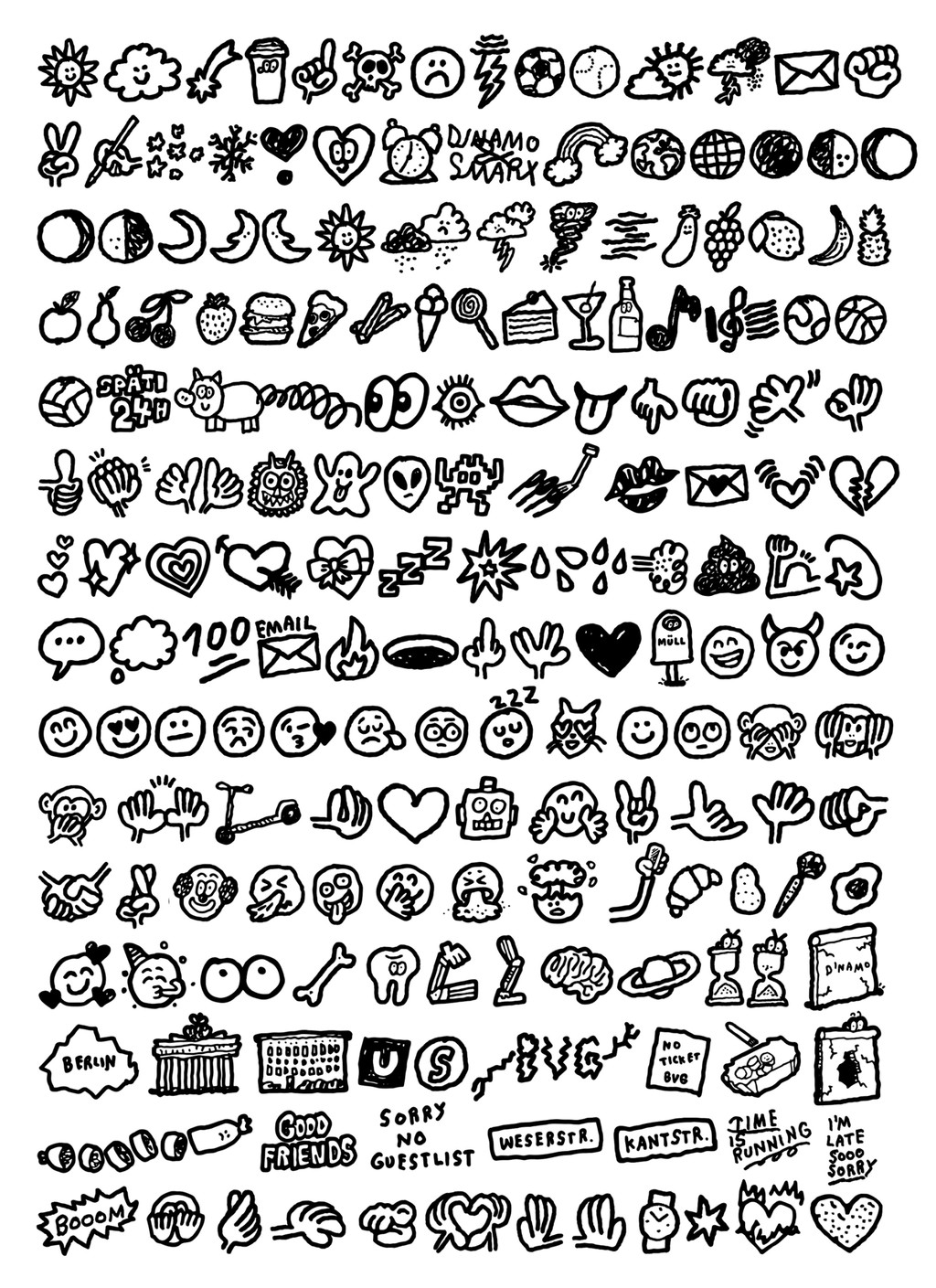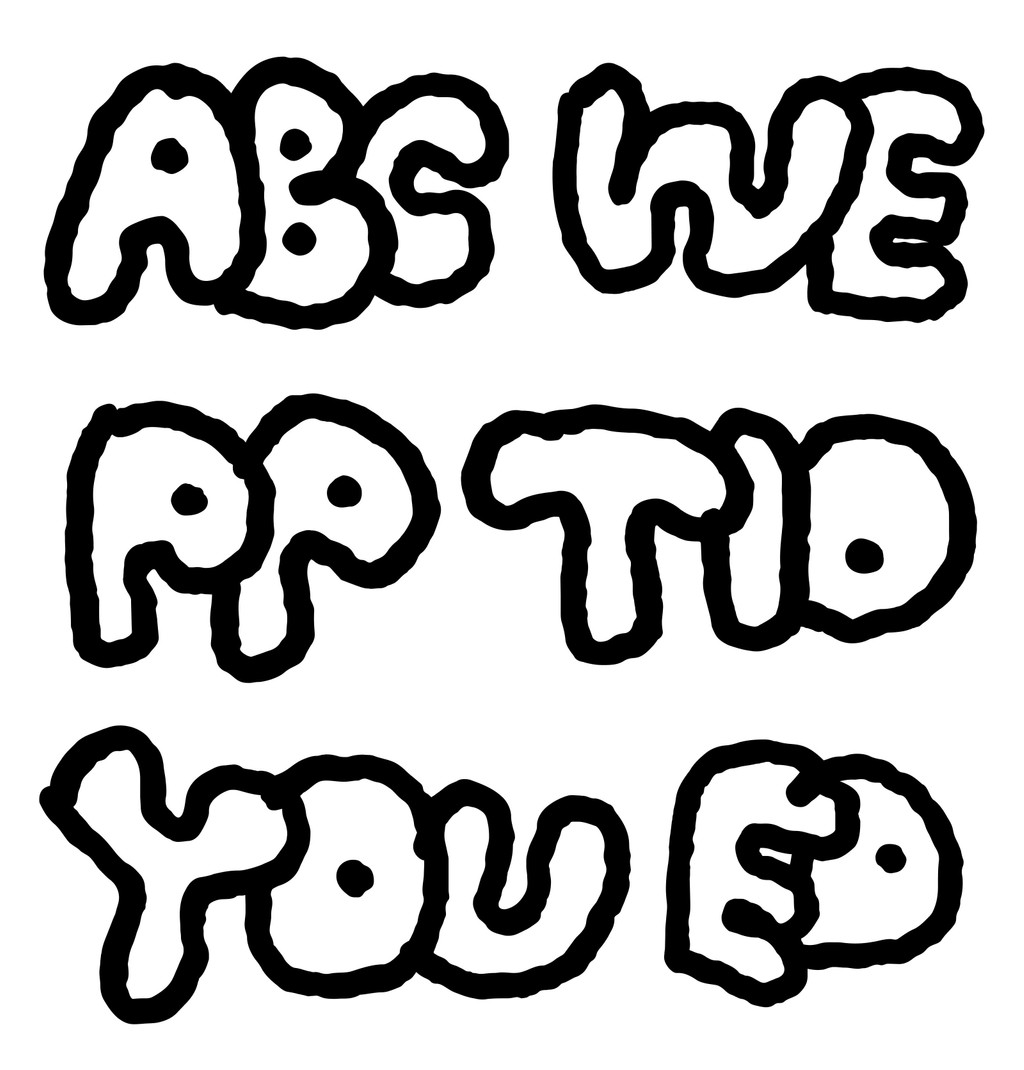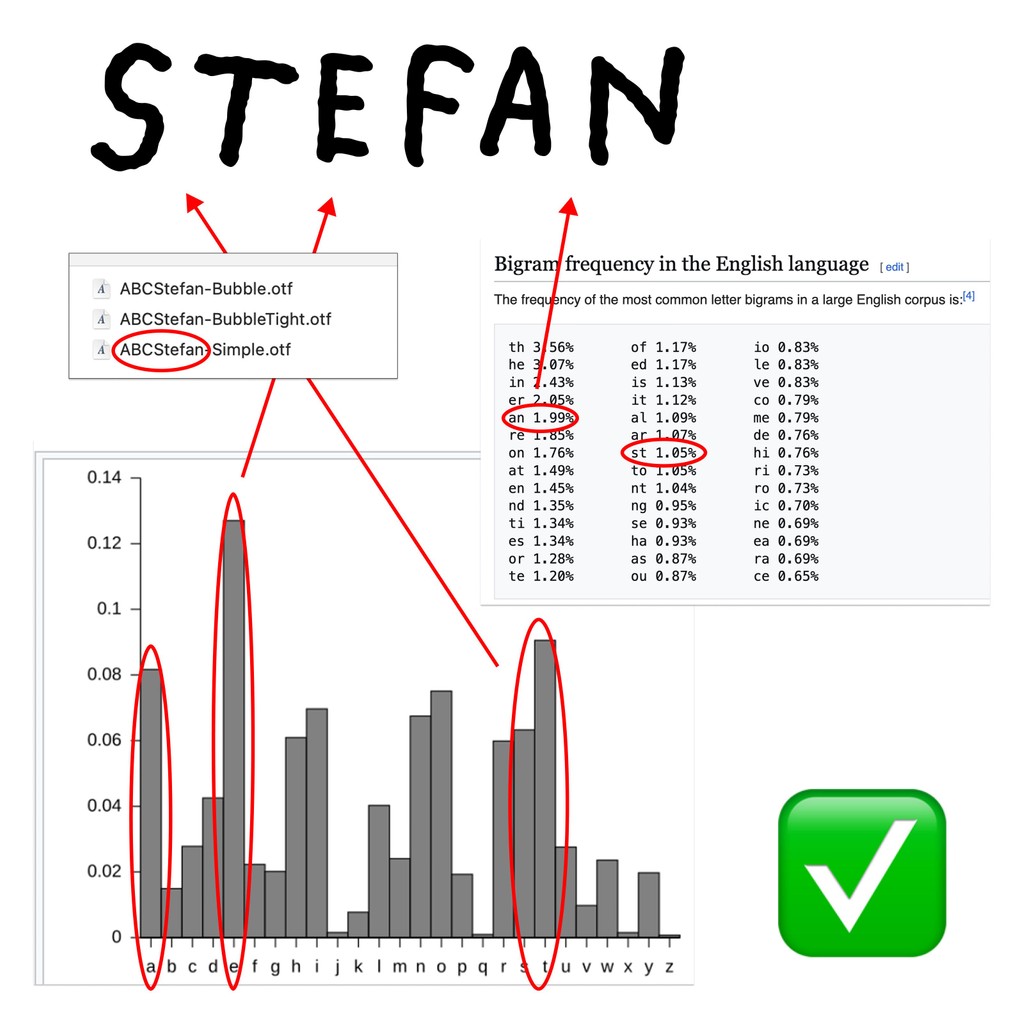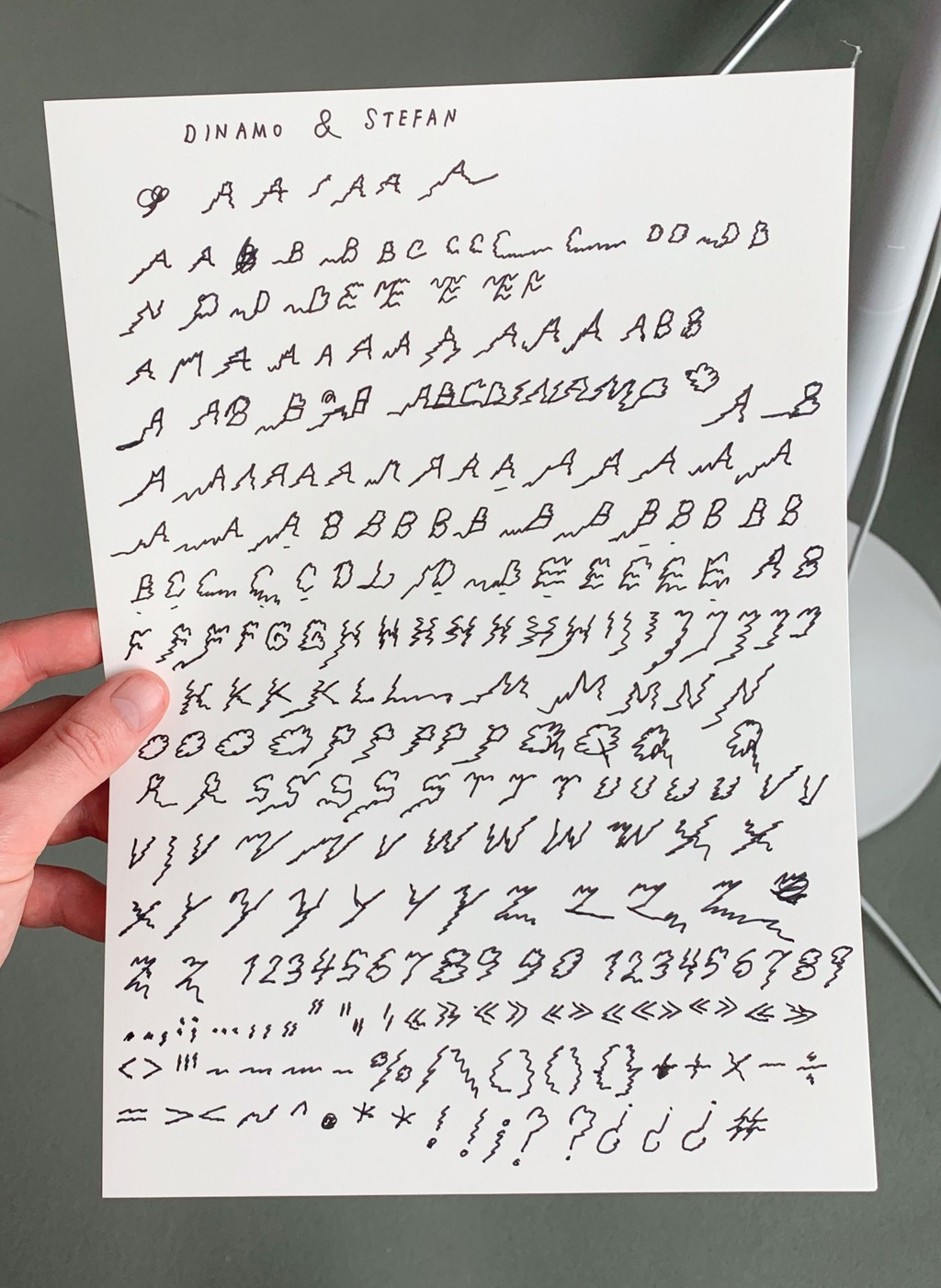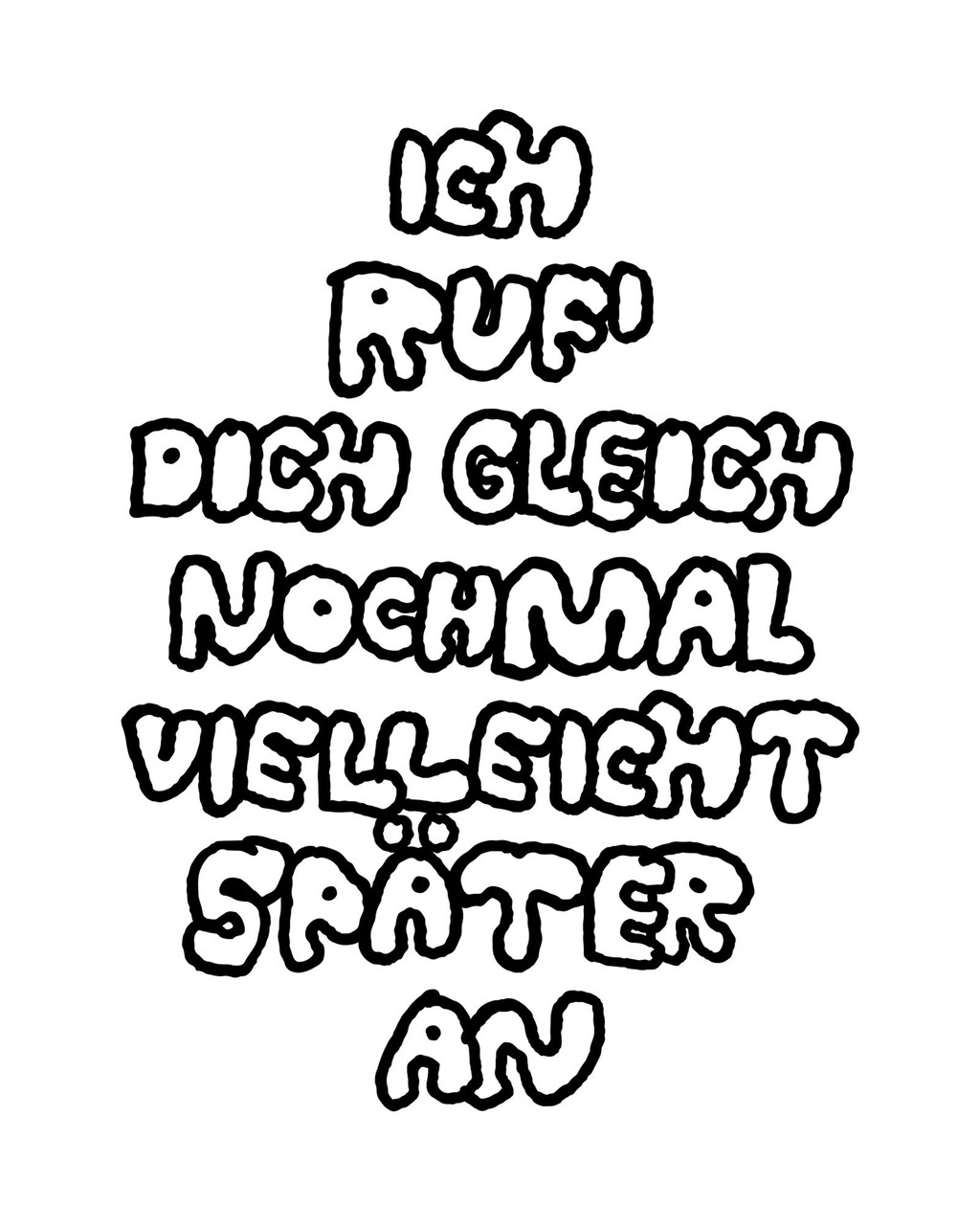
ABC Stefan: Digitizing Artist Stefan Marx’s Handwriting
We’re releasing ABC Stefan today, the result of a multi-year collaboration where we turned contemporary artist Stefan Marx’s handwriting into a digital font.
Over five years, we analyzed and translated Stefan’s handwriting into a fully functional type system of three subfamilies: Simple, Bubble, and Bubble Tight. Each takes inspiration from hand-drawn samples created by Stefan for this project. As we publish the font in our library today, others can now use the Berlin-based artist’s iconic letterforms in their own work.
As a contemporary artist, Stefan has lent his handwriting to a variety of media: paper, canvas, porcelain, and textiles. He publishes artists’ books and zines, designs record covers for various labels, and shows his work in international exhibitions, at book fairs, and galleries.
Stefan mostly uses the Pentel mlj20 pen when drawing and writing, a tool that has therefore become inextricably linked to our digitization. The font’s lines all derive from the thickness of its nib.
LETTER RANDOMIZATION
What makes handwriting feel like handwriting is its inconsistencies. Stefan has drawn four versions of every letter for ABC Stefan (so four A’s, four B’s, four C’s, etc.) — and also four versions of every punctuation mark, symbol, and figure. While digitizing, we built a randomizer function straight into the font software, which randomly displays different versions of letters as you type.
e, t, a, and s are some of the most used letters in the english language, says wiki
This means that just like a human’s handwriting, there are subtle inconsistencies in the digital characters of ABC Stefan when you type strings of text (even the periods are subtly different). Take a look at the character set in its entirety:
ABC Stefan is a fully functional body copy font with accents, numbers, symbols, and punctuation.
FEATURES
A variety of unique features have been encoded into ABC Stefan so that it mimics and builds on Stefan’s handwriting samples, transforming the font into a multidimensional digital tool. You can activate zig-zagging swashes or you can scratch out your mistakes. You can switch ligatures on or off, and write spaciously with Bubble or in a compact way using Bubble Tight.
1. SWASHES
Activate swashes manually as initial, middle, or final swashes by selecting from your alternate menu. You can also switch on the OpenType feature to activate the initial and last swash stylistic set: With it, flourishes will appear on the first and last letter of every word that’s typed.
2. Mistakes
When Stefan provided us with his letter samples, many characters that he didn’t like or considered a mistake were crossed out. Instead of ignoring them, we realized that we could build a “mistake feature” into the font, so that words can also be crossed out digitally.
Just like the letter randomization, there are multiple scribbles to chose from: simple lines, hurried ones, or denser scribbles. Find them via OpenType features.
bubble & bubble tight
As well as ABC Stefan Simple, there are two additional styles of the font, Bubble and Bubble Tight, which balloon Stefan’s simple handwriting into outlined shapes. As any serious text font, these styles are packed with ligatures, which create a dynamic sense of textual flow.
Bubble
Bubble Tight
The most used ligature is TH and the least used is CE, according to wikipedia.
emojis
To make ABC Stefan a fully functioning communication tool in its own right, we have also baked emojis inside the font. Stefan has rendered Apple’s standard emoji pack in his hand, and also added a couple of special, Berlin-themed icons.